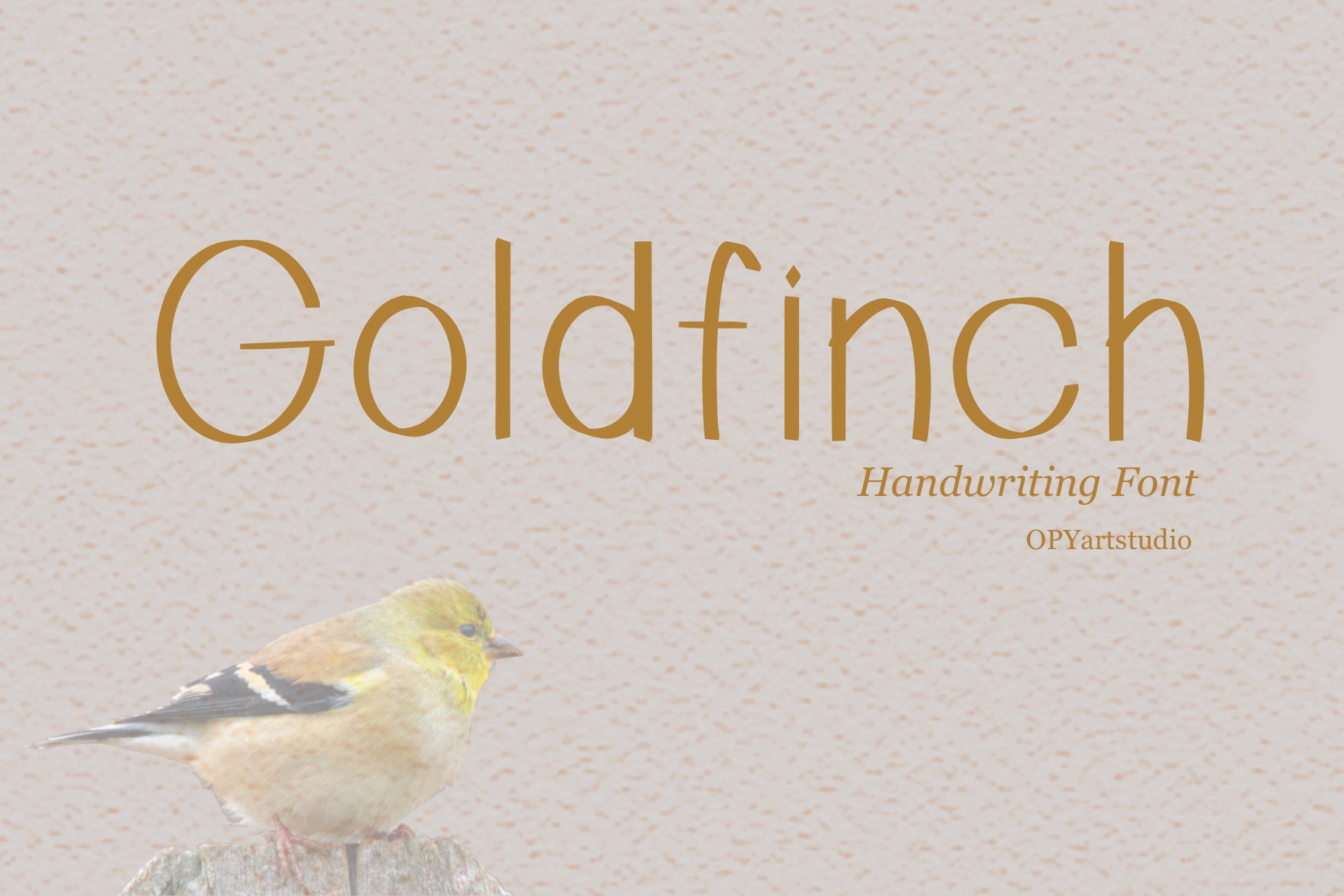
Goldfinch - Handwriting Clean Font
I'm excited to present my font creation, "Goldfinch," a unique handwriting font inspired by a bird that visits my window bird feeder at my Michigan home. The font's design is influenced by the Goldfinch's cute and distinctive features, such as its round&short body and short&sharp bill. This gives the font a charming and adorable look, yet it still maintains a high-end appeal due to its neat and sharp characters.
"Goldfinch" is a versatile font that's easy to read and perfect for use in books, posters, presentations, and any project that requires a warm and friendly aesthetic. This font truly captures the essence of the Goldfinch and will surely delight anyone who uses it.